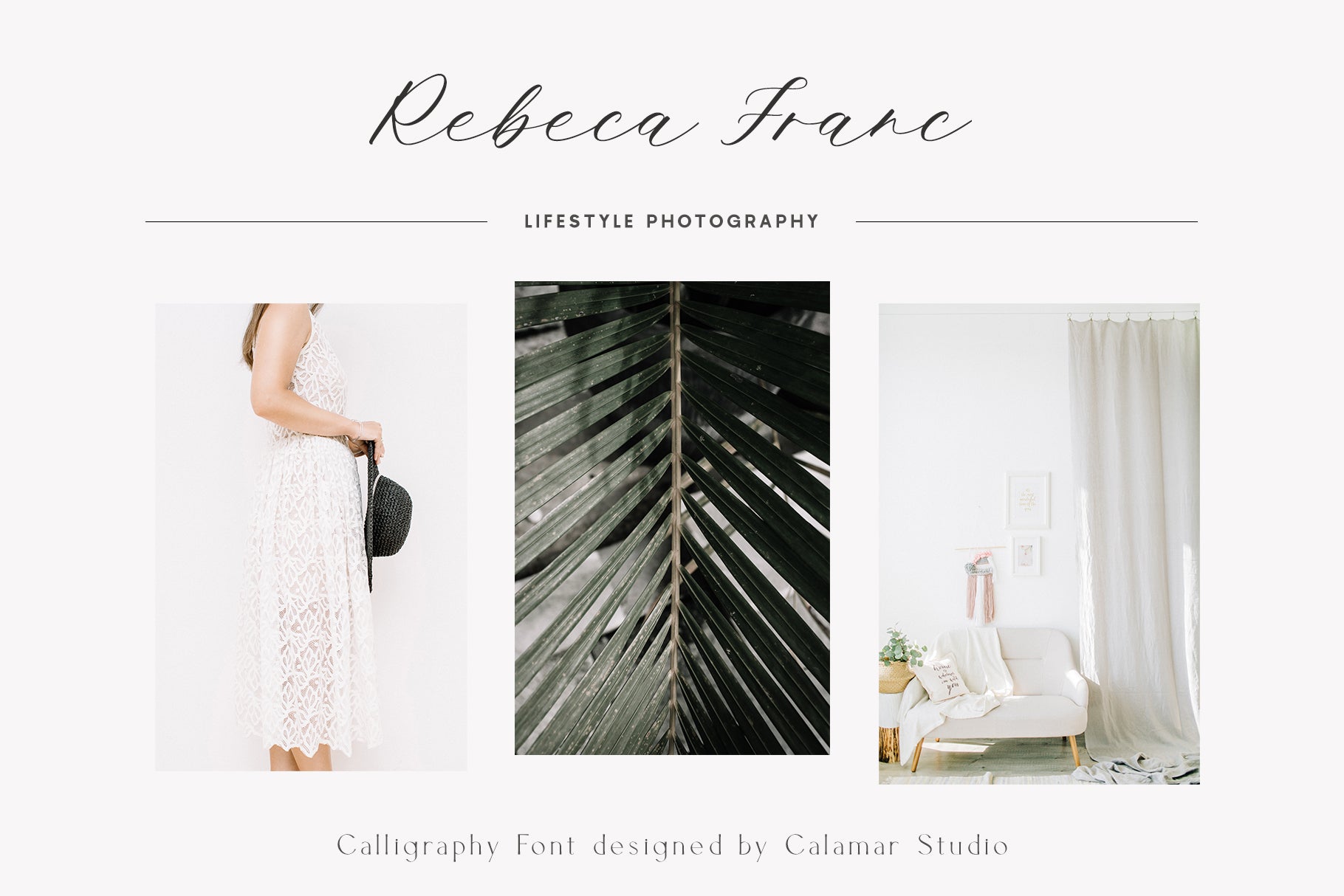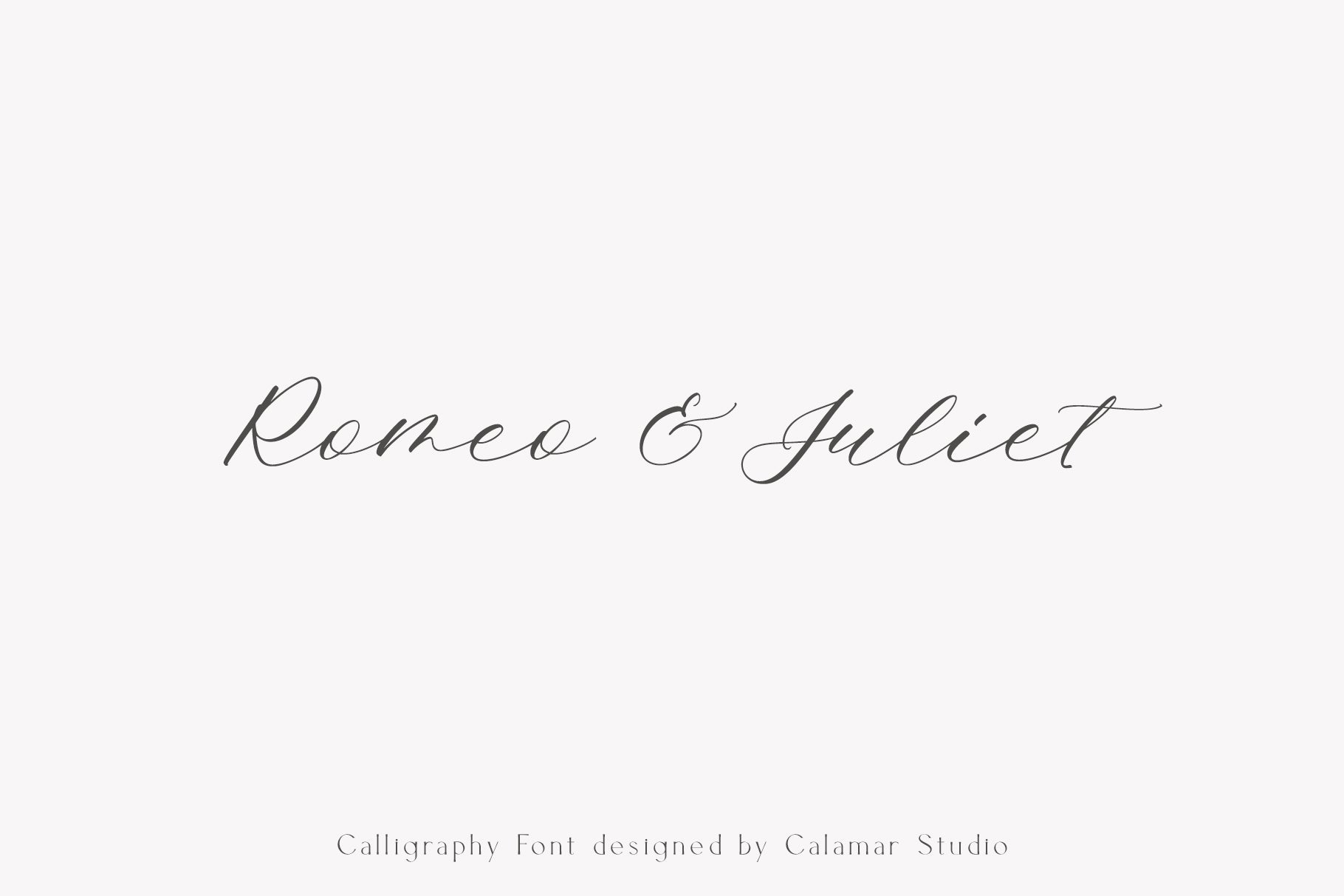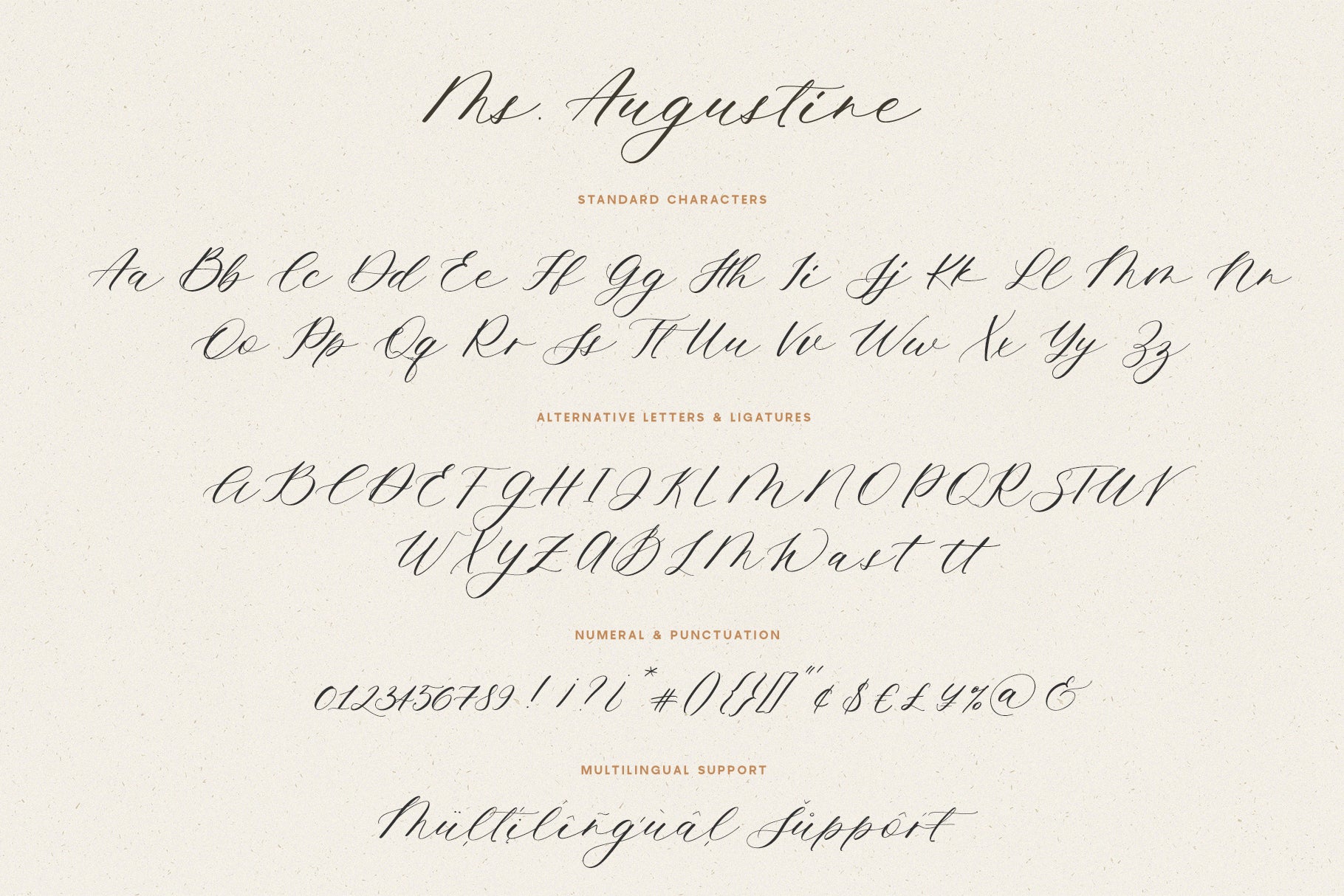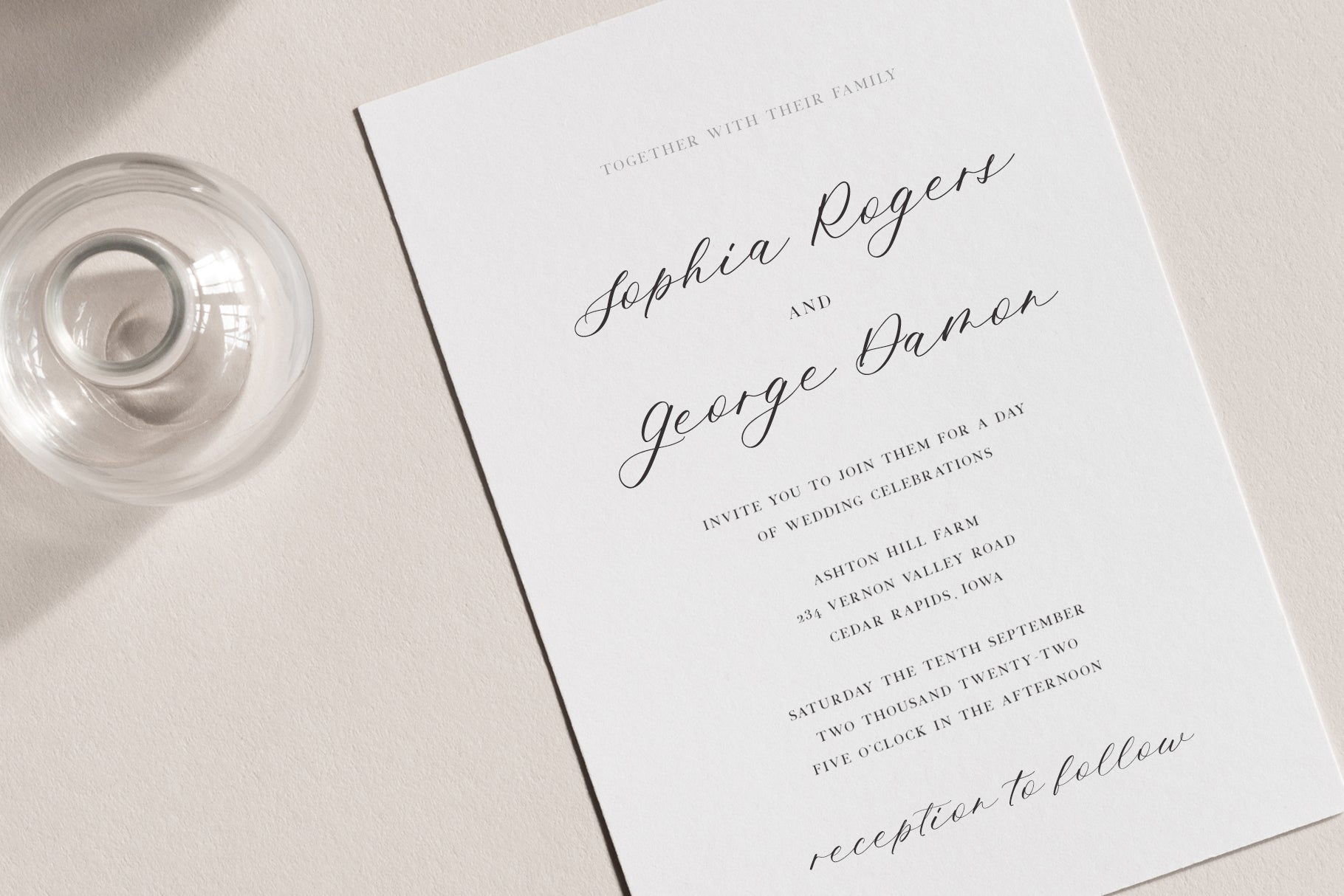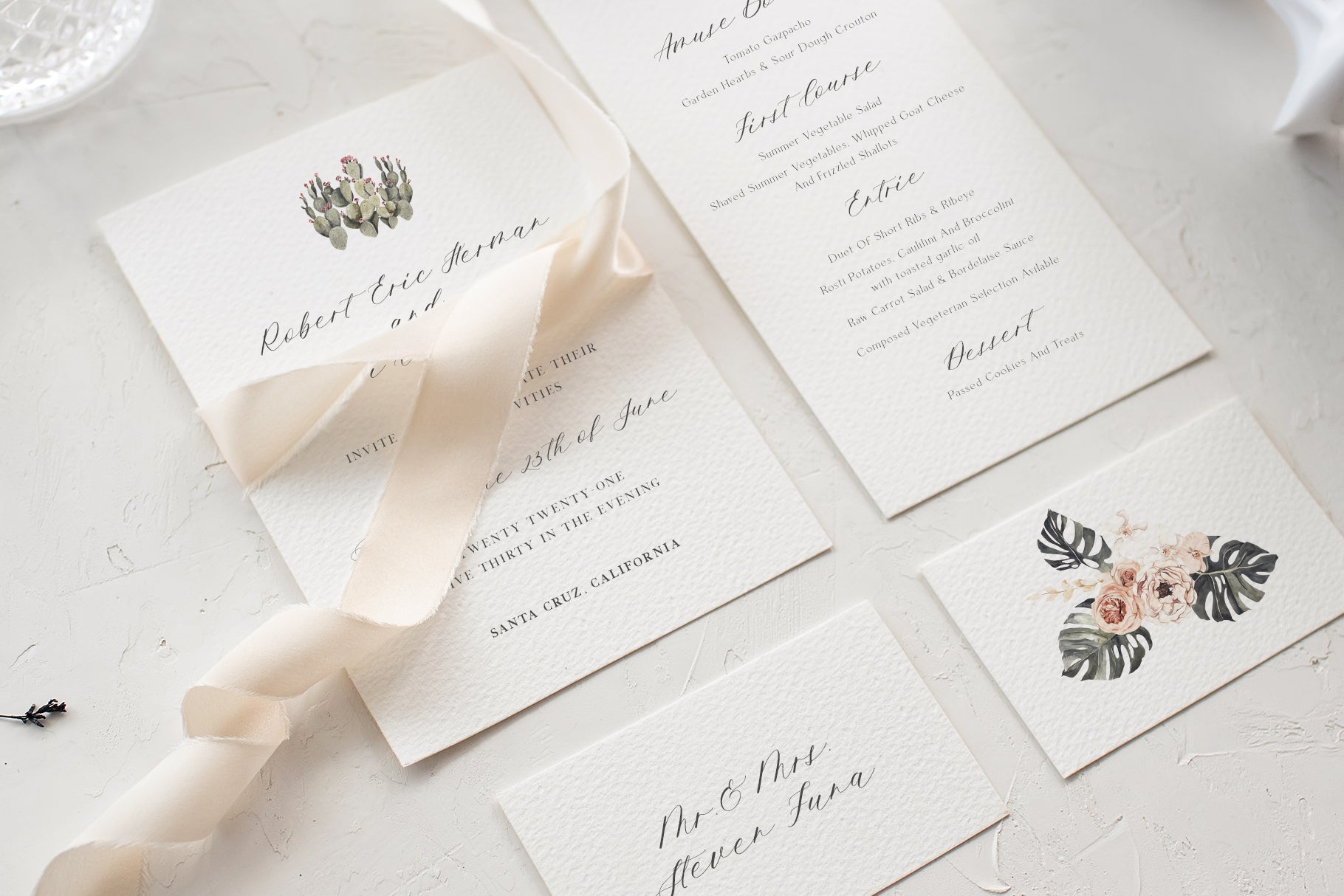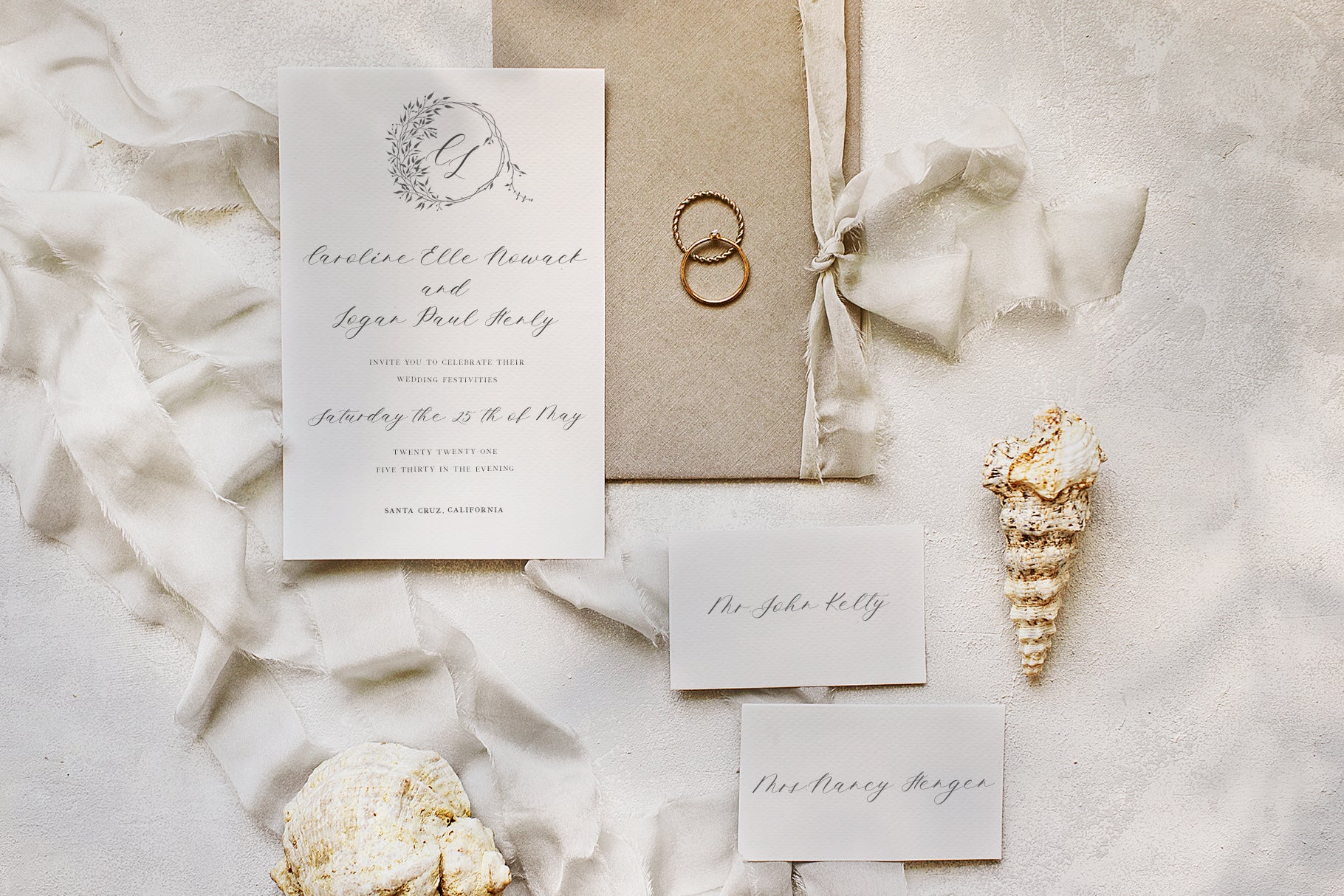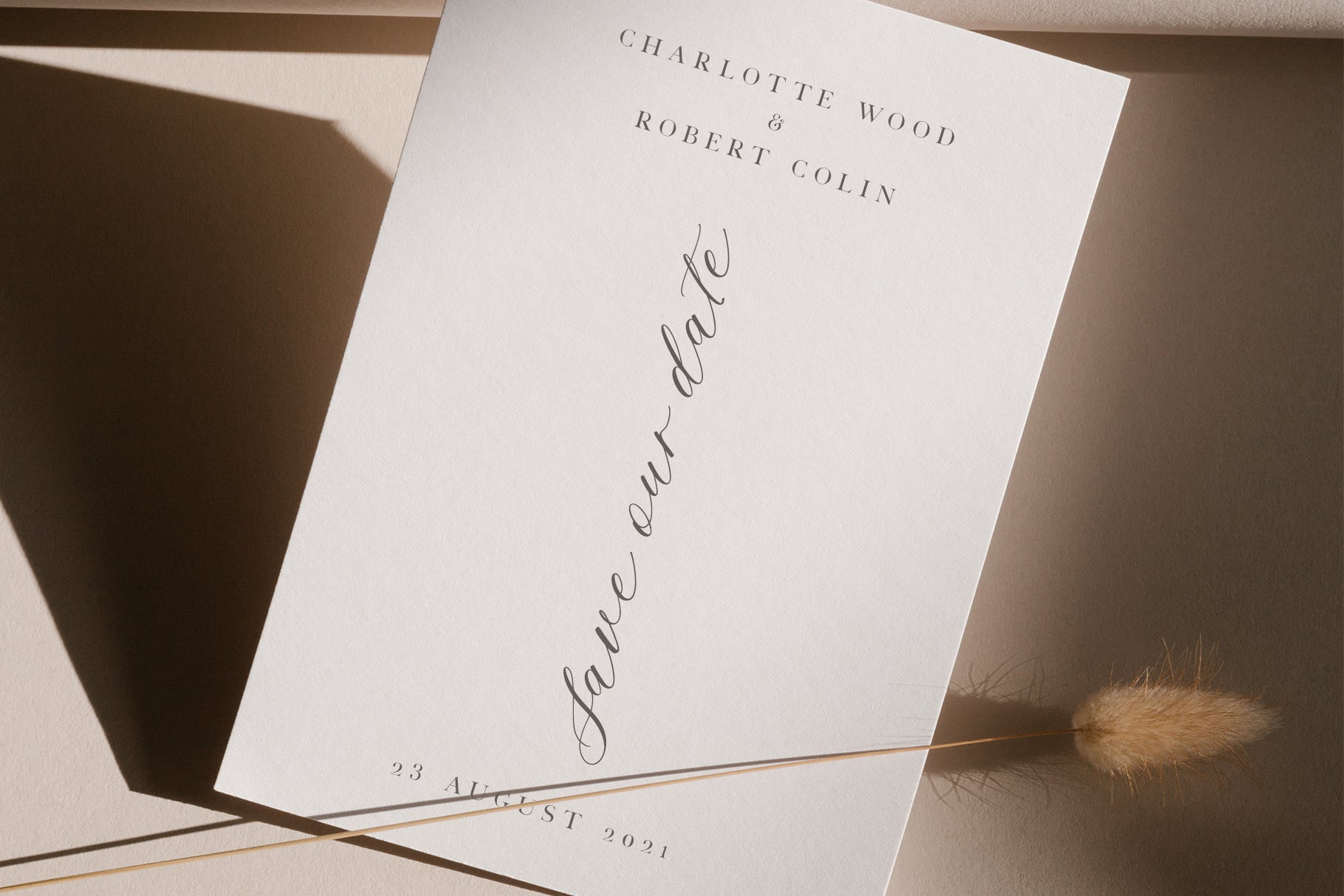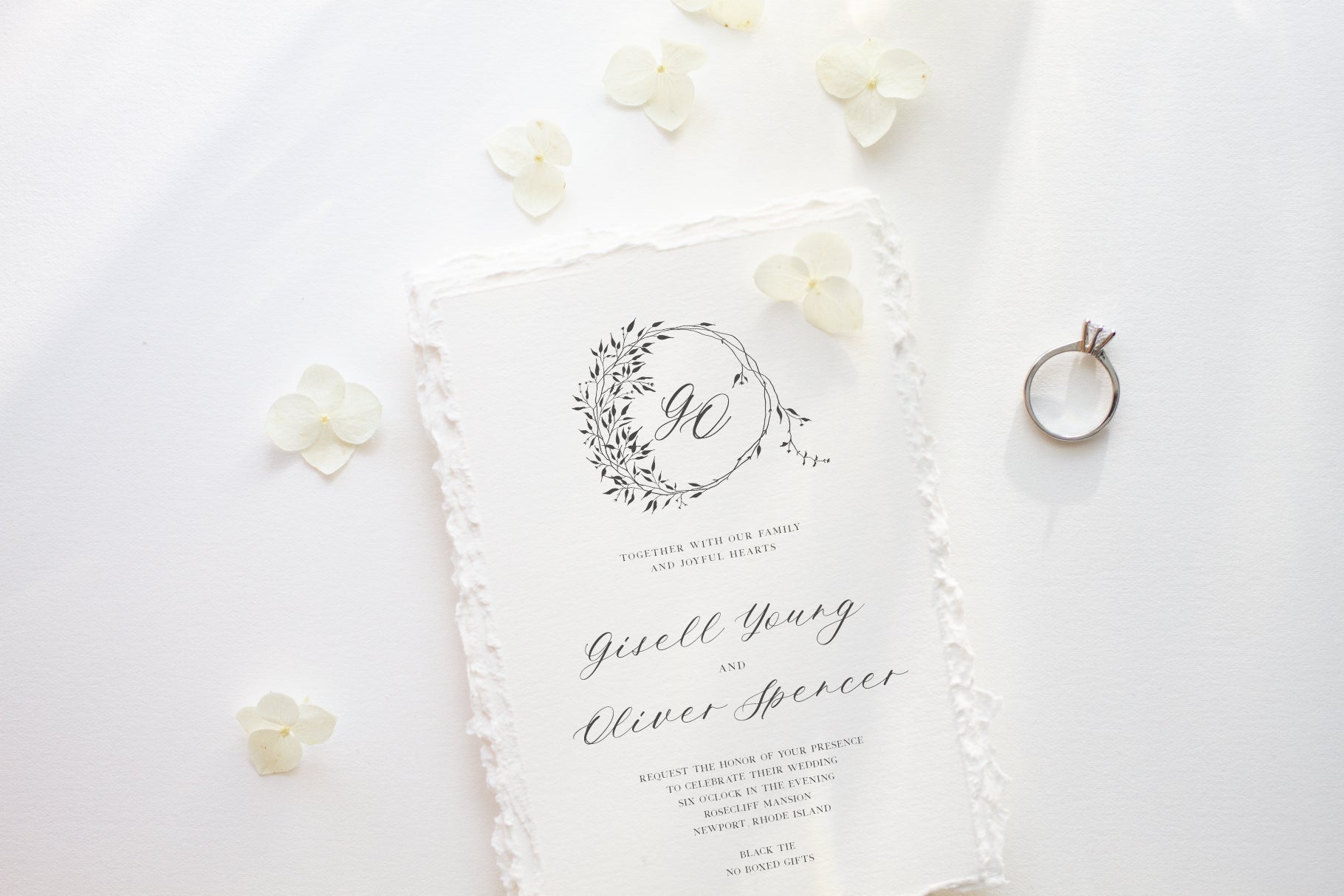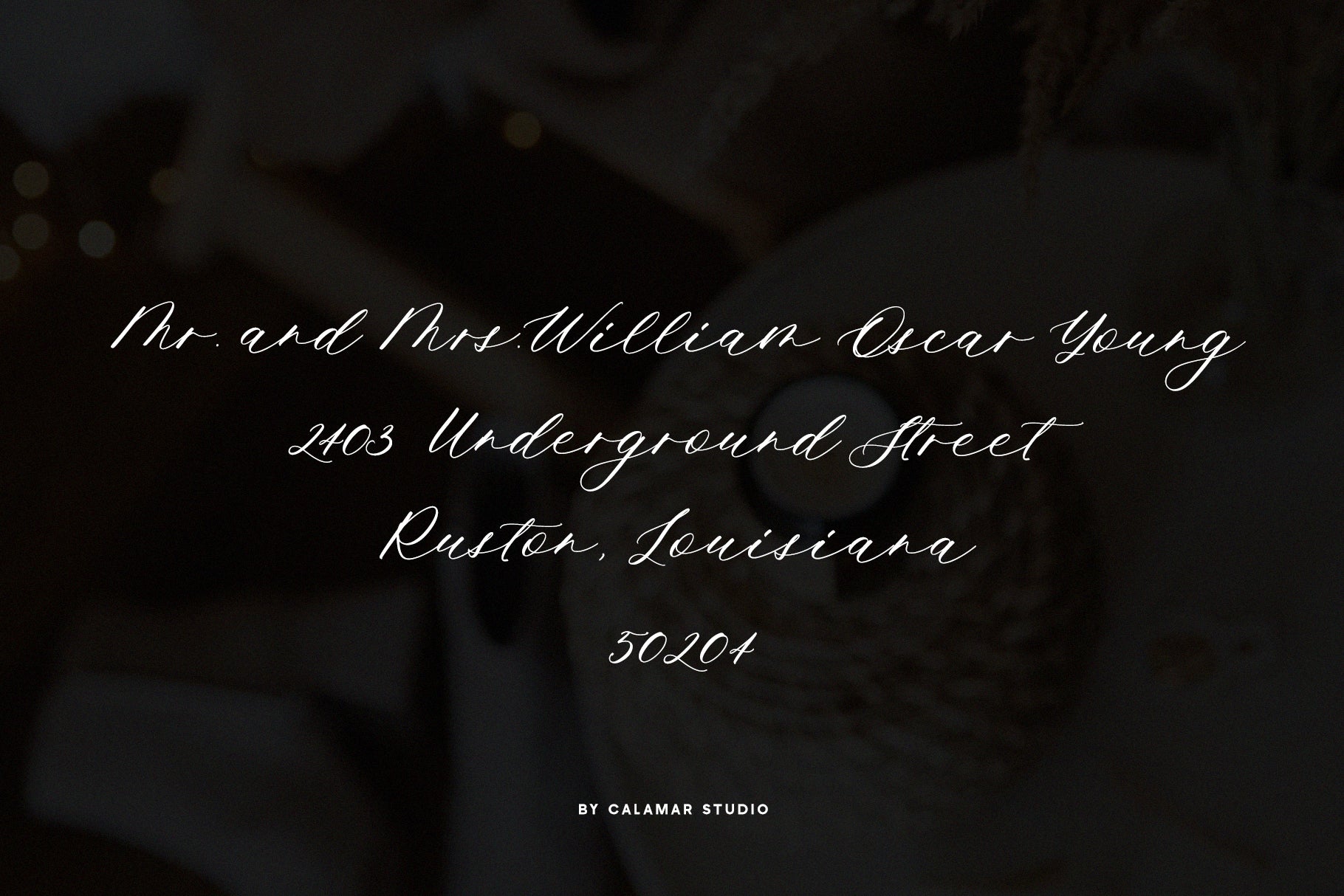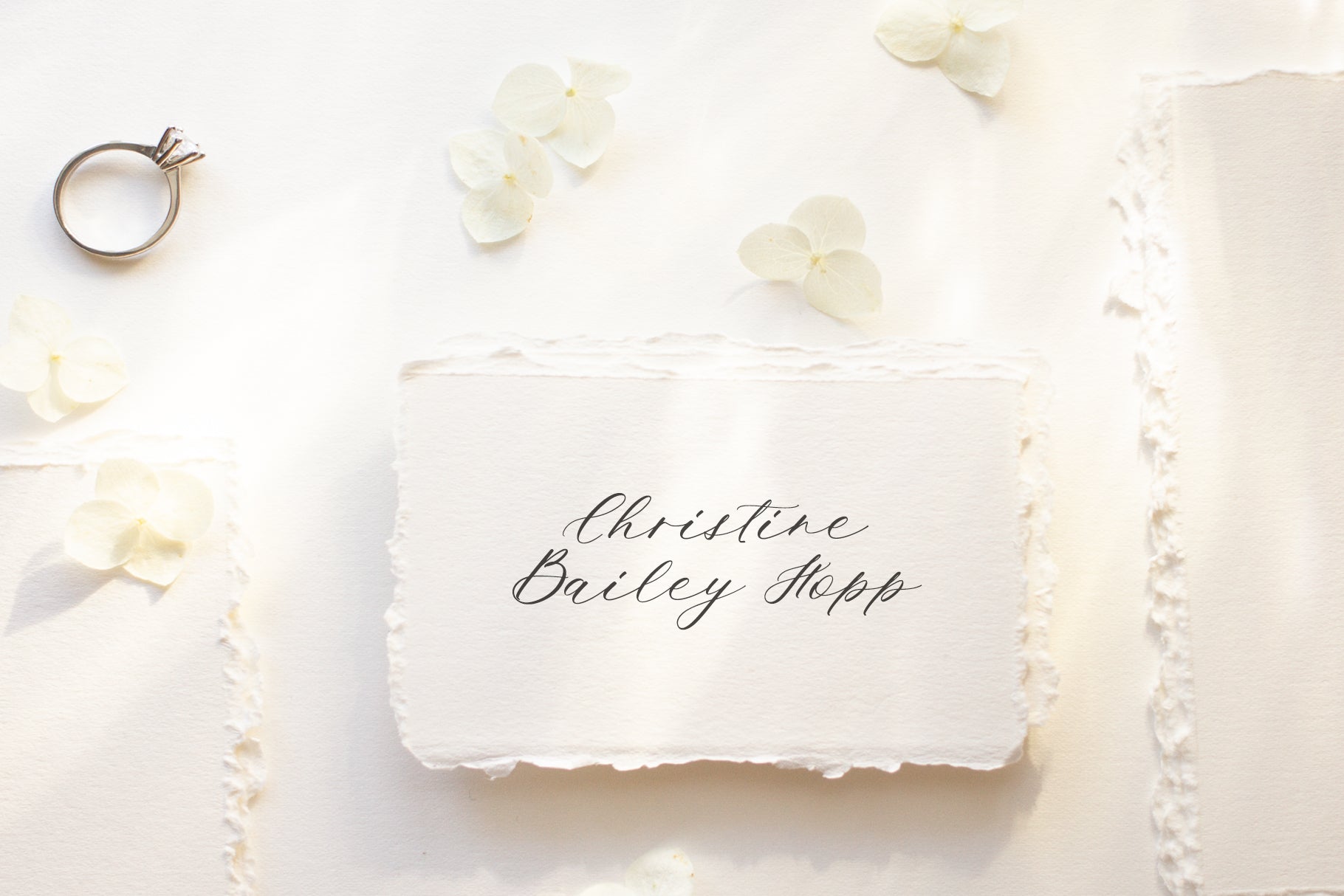
Introduce you my new calligraphy font for your stunning projects.
Ms. Augustine is a light, lovely and modern calligraphy font with sophisticated flows. This beautiful script particularly well suited for wedding invitations, save the date cards and feminine branding.
Ms. Augustine includes full set of Uppercase and Lowercase Basic Characters, Numbers and Punctuation. Also it contains a lot of stylistic alternates to perfectly re-create natural calligraphy (check the previews).